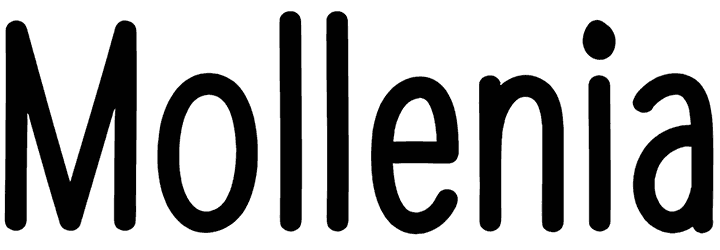
Bentalista Font
Among the thousands of web pages, e-books, and graphic content, you have to produce very specific content to get the audience’s attention in less than a few seconds. Using a font like Bentalista is one way to attract the audience.
Bentalista is a sans serif font that conveys a sense of respect and credibility to the audience. This font is also highly readable and you can use it to produce applications and e-books.
Designed by: Zamjump